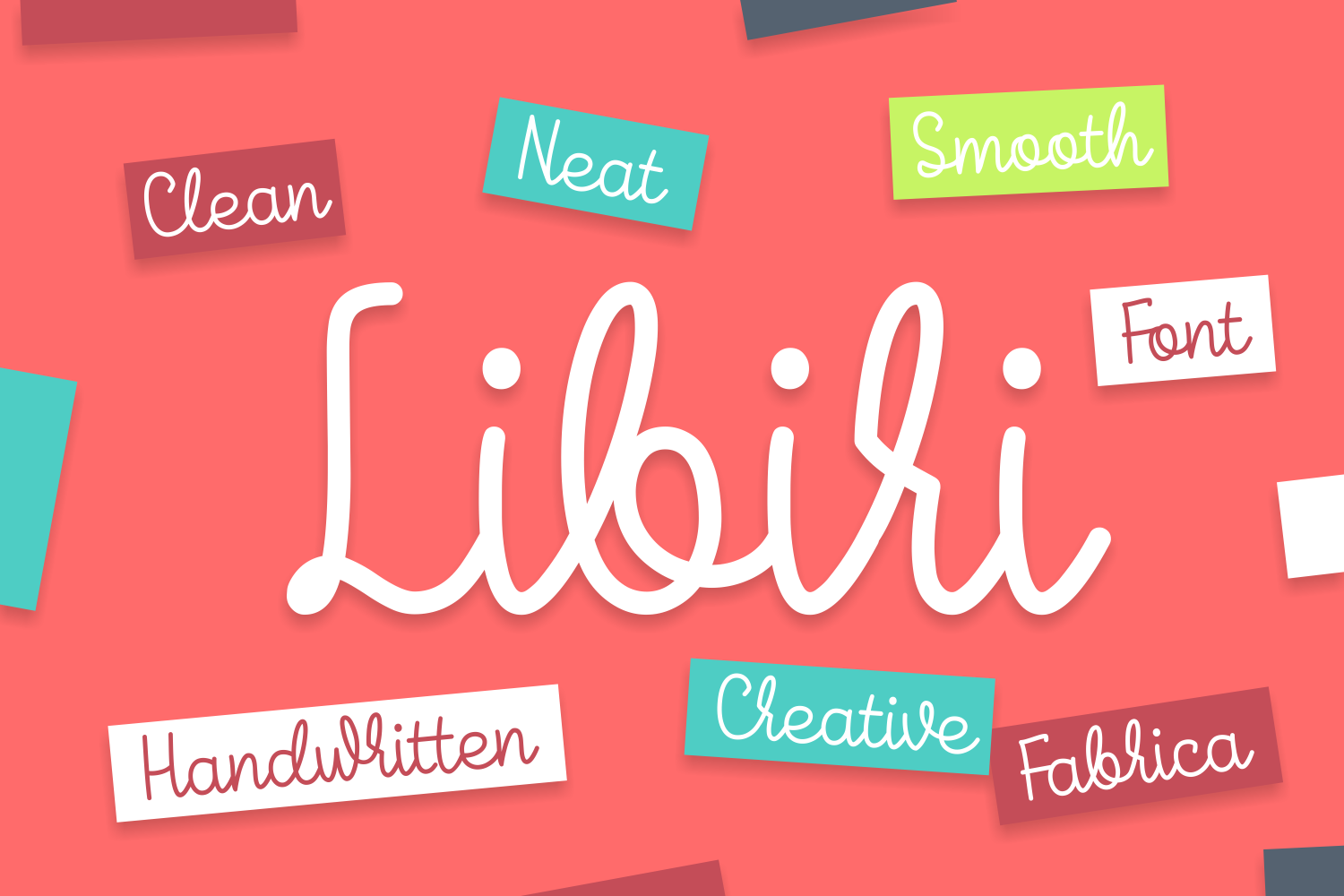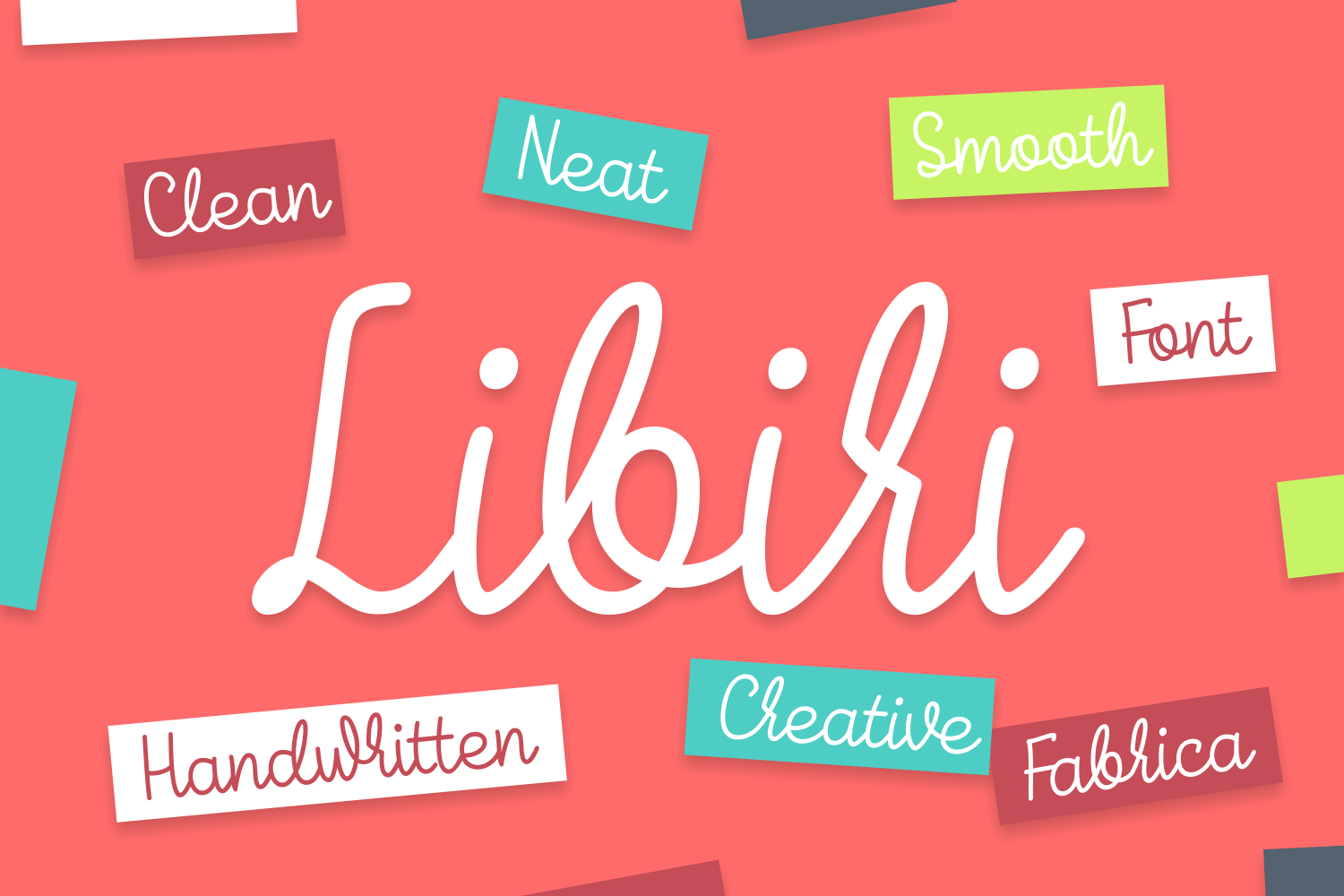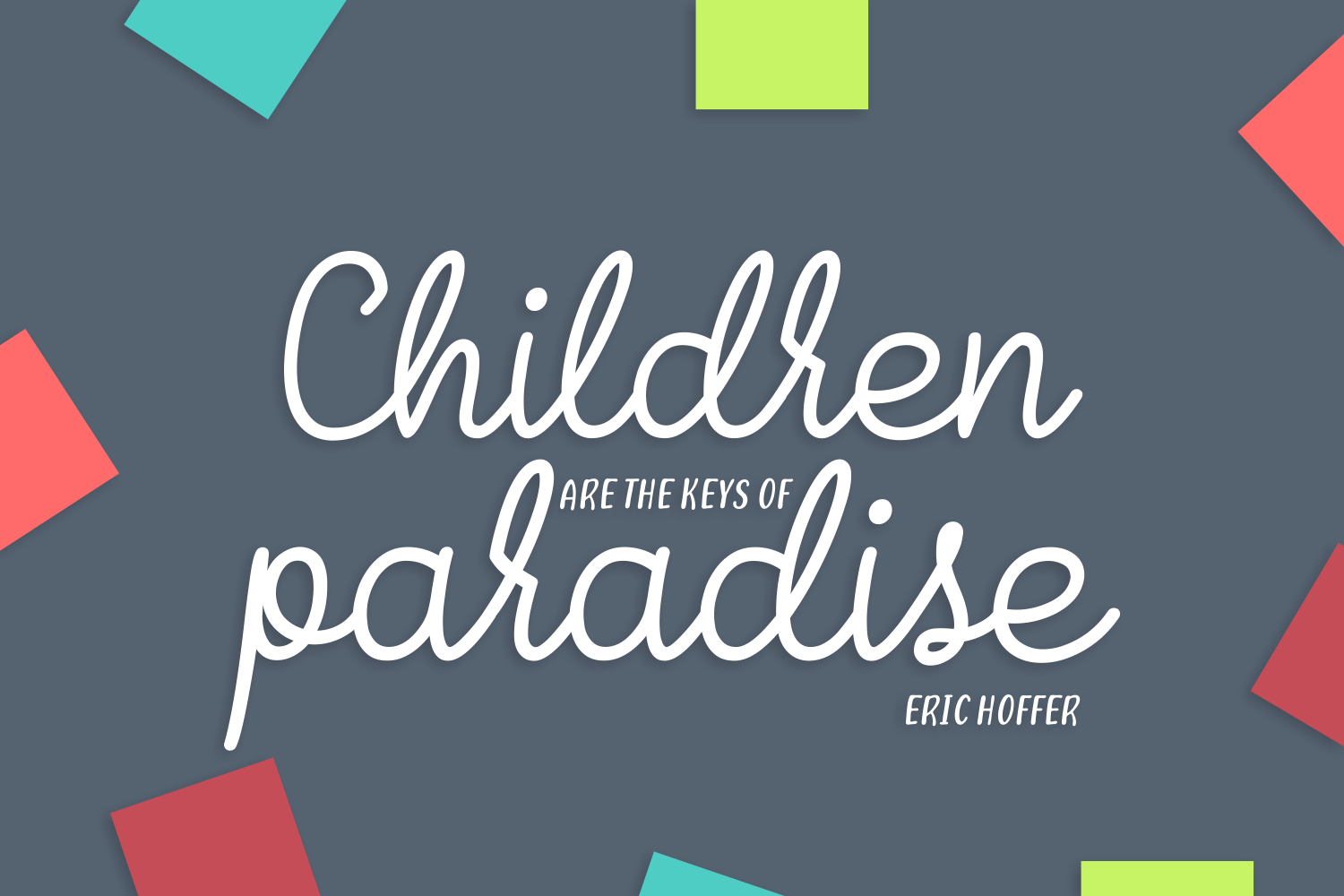
Libiri Font
About Libiri Font
Libiri is a smooth monoline script font.
This playful font works great for children-focused designs, but also can be used to create playful design elements, headlines and much more.
The Libiri font comes in 2 versions: Regular & Italic.